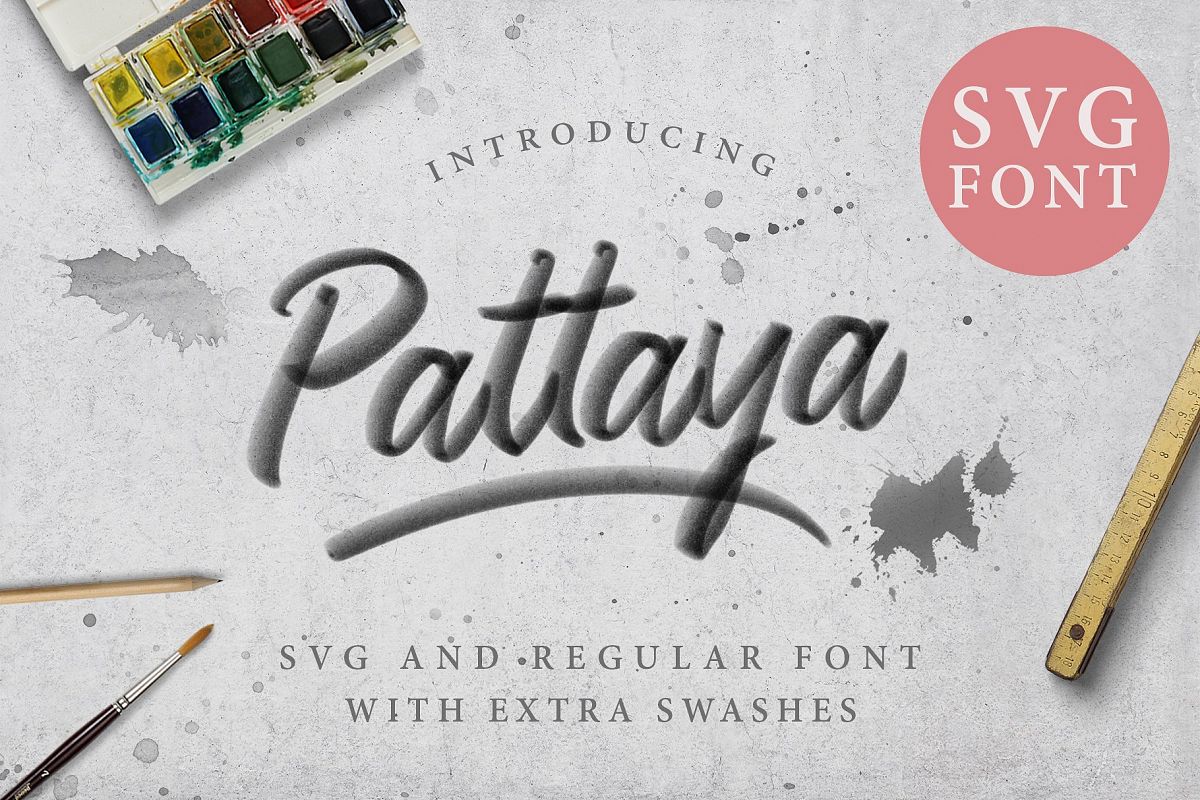
Pattaya Script OpenType SVG
Introducing.. PATTAYA, Svg Script and regular font with Extra swashes. Pattaya is our latest product. Made with new technology and dedicated for anyone who have unlimited spirit and beyond. Also Pattaya comes with alternate to help you in making a fresh imagination.Pattaya perfect to use for Hypebeast style, Branding, quotes, Logotype, Letterhead, Poster, Apparel Design, Label and etc.What's Included
• Character set A-Z with special uppercase letters
• Stylistic Alternates And Ligatures